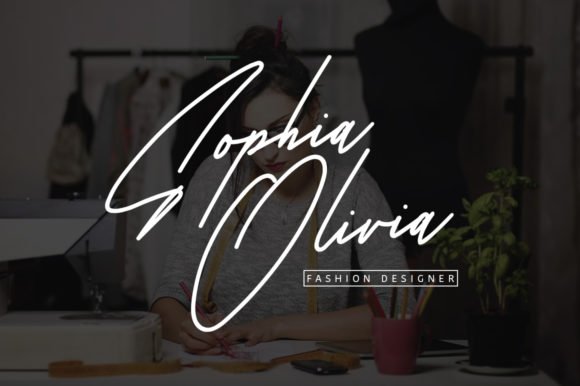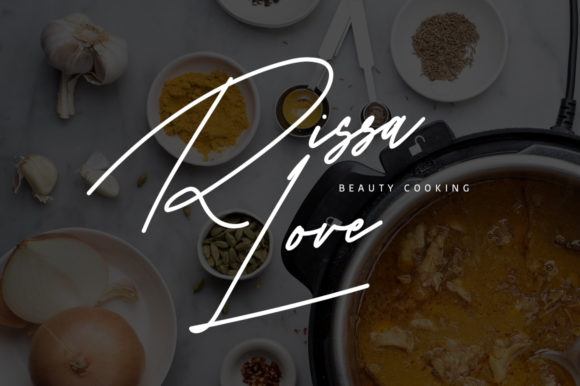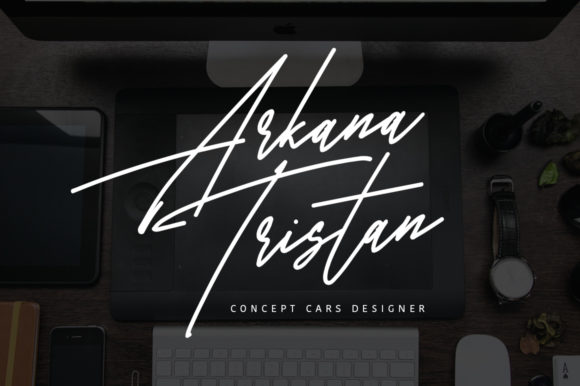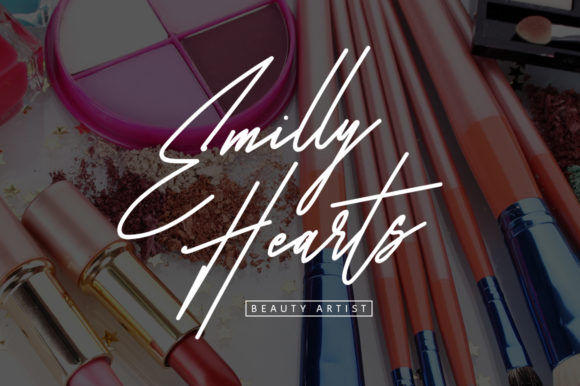
Harris Signature Font: Elevate Your DIY Projects with Timeless Elegance
In the world of typography, few fonts manage to strike a balance between classic sophistication and modern flair. Harris Signature Font is one such remarkable typeface that seamlessly blends traditional calligraphic influences with a contemporary twist. This stunning script font is a game-changer for designers, crafters, and DIY enthusiasts looking to add a touch of elegance to their projects.
The Essence of Harris Signature Font
Harris Signature Font is a beautiful, hand-crafted script font that exudes timeless charm. Its classy calligraphic roots are evident in the flowing lines, delicate strokes, and intricate details that give the font its unique character. Yet, despite its traditional underpinnings, Harris Signature feels surprisingly modern and fresh. This versatility makes it an excellent choice for a wide range of applications, from wedding invitations and branding materials to craft projects and digital content.
What Makes Harris Signature Font Stand Out?
- Unique Character: Harris Signature boasts a distinctive, one-of-a-kind appearance that sets it apart from more generic script fonts. Its individuality ensures that your projects will stand out in a crowd.
- Versatility: Whether you’re working on a digital project, crafting a handmade card, or designing a professional logo, Harris Signature adapts effortlessly to various mediums and contexts.
- Elegance and Sophistication: The font’s calligraphic influences lend an air of sophistication and elegance to any project. It’s perfect for designs that require a touch of luxury or refinement.
- Easy to Read: Despite its ornate appearance, Harris Signature remains highly legible, making it suitable for both headlines and body text.
Using Harris Signature Font in DIY Projects
For crafters and DIY enthusiasts, Harris Signature Font opens up a world of creative possibilities. Here are a few ideas to get you started:
- Handmade Cards and Stationery: Add a personal touch to your greeting cards, invitations, and letters with the elegant flair of Harris Signature.
- Custom Jewelry and Accessories: Use the font to create custom tags, labels, or even engravings for jewelry, candles, and other handmade items.
- DIY Home Decor: From wall art to chalkboard signs, Harris Signature can elevate your home decor projects with its sophisticated charm.
- Digital Crafts: Incorporate the font into your digital scrapbooking, photo albums, or social media graphics for a unique and stylish look.
Tips for Working with Harris Signature Font
To make the most of Harris Signature Font, consider the following tips:
- Pair with Complementary Fonts: Combine Harris Signature with simpler fonts to create visual interest and hierarchy in your designs.
- Adjust Size and Color: Experiment with different sizes and colors to emphasize certain words or elements in your project.
- Play with Textures and Backgrounds: Add depth to your designs by incorporating textures or subtle backgrounds that complement the font’s elegant style.
Harris Signature Font is more than just a typeface – it’s a design tool that can transform your DIY projects into stunning works of art. With its perfect blend of classic calligraphy and modern freshness, this gorgeous and unique font is sure to inspire creativity and elevate your designs to new heights. Whether you’re a professional designer or a crafting enthusiast, Harris Signature Font is an invaluable addition to your creative arsenal.